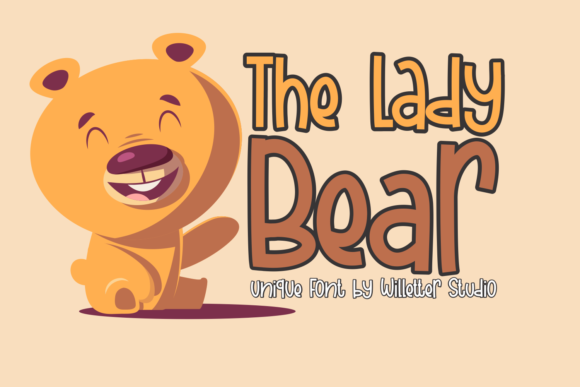
Embark on a typographic adventure with The Lady Bear Font, a display font family designed to capture the essence of enchantment and authenticity. Crafted by the skilled hands of Willetter Studio, this font exudes a charm that is both captivating and timeless. Let The Lady Bear Font be your creative companion as you bring your DIY projects to life, transforming them into visual masterpieces.
Step into a world where imagination meets reality, where the written word dances with grace and elegance. The Lady Bear Font is not just a collection of letters; it's an invitation to express your individuality, to leave an indelible mark on the hearts and minds of those who encounter your creations. Its enchanting curves and authentic style will add a touch of magic to any project, whether it's a heartfelt letter, an eye-catching poster, or a stunning social media post.
With The Lady Bear Font, you have the power to transport your audience to a realm of wonder and intrigue. Let your words flow seamlessly from one character to the next, as if they were whispered by a gentle breeze. Each letter is meticulously designed to evoke emotion and spark curiosity, leaving an unforgettable impression on anyone who lays eyes upon it.
Unleash your creativity and let The Lady Bear Font guide you on a journey of self-expression. Its versatility knows no bounds, making it the perfect choice for a wide range of projects. From whimsical invitations to enchanting logos, from captivating headlines to heartfelt greeting cards, The Lady Bear Font will elevate your words and make them shine brighter than ever before.
Don't settle for ordinary fonts that blend into the background. Embrace the extraordinary with The Lady Bear Font and watch as your words take on a life of their own. Let your imagination soar and your creativity flourish, knowing that you have the perfect tool to bring your vision to life. The Lady Bear Font is more than just a font; it's an experience that will transform your creative endeavors into works of art.